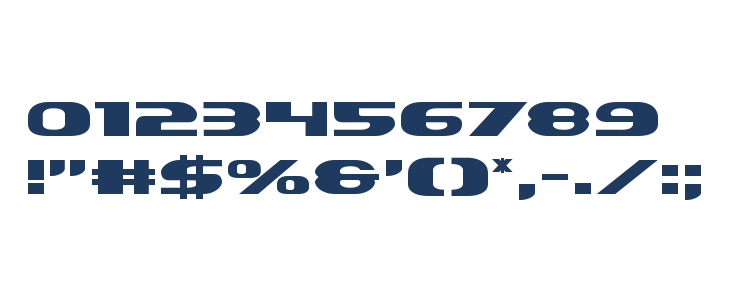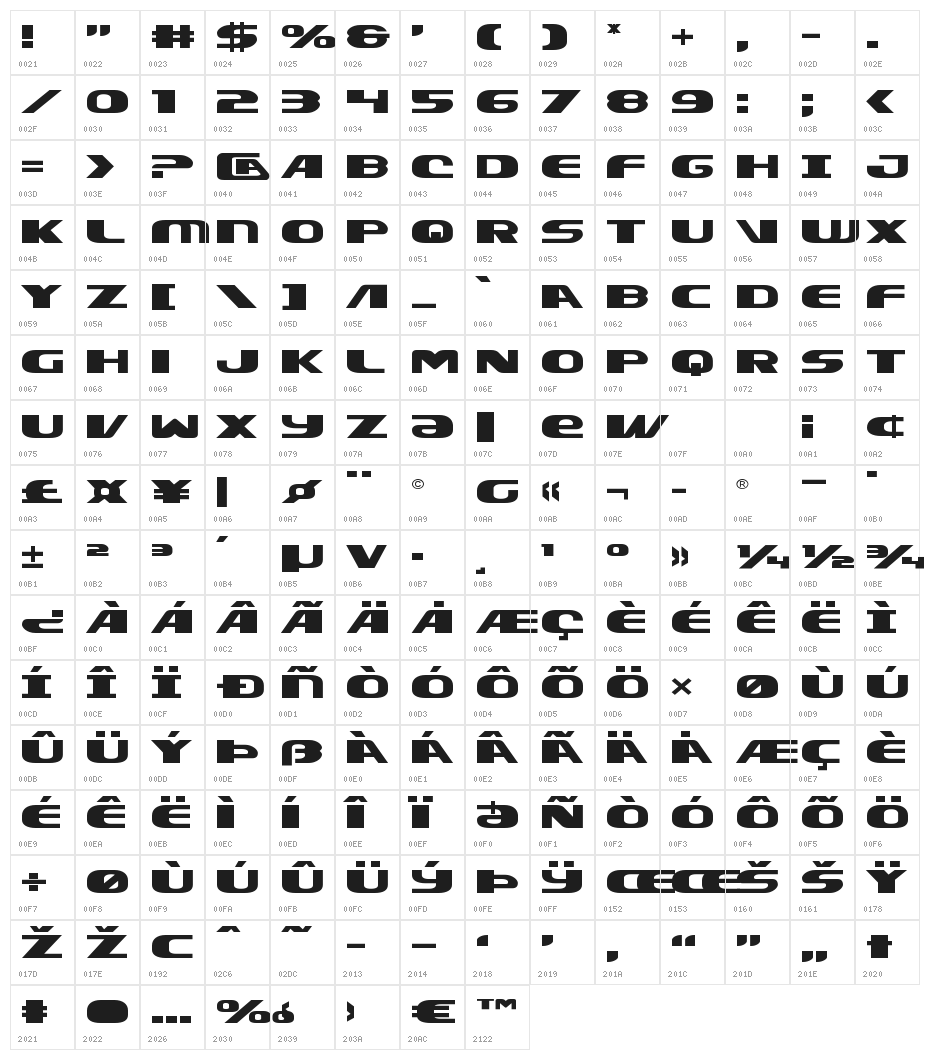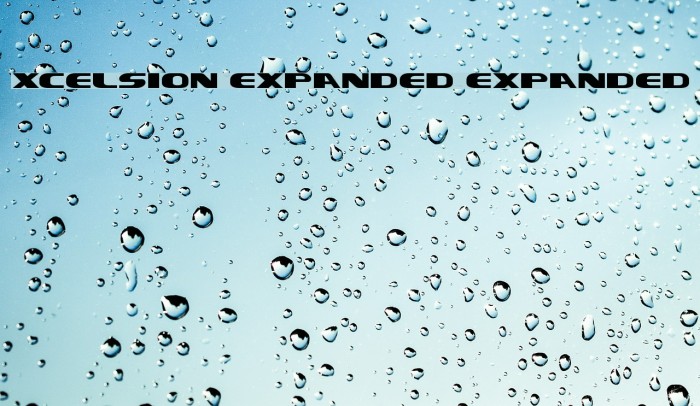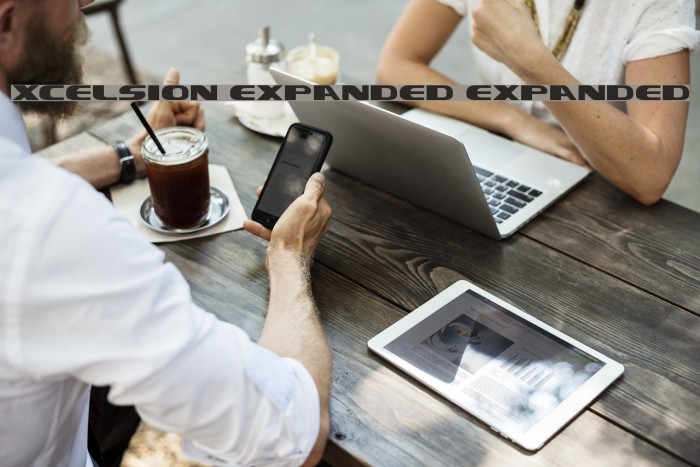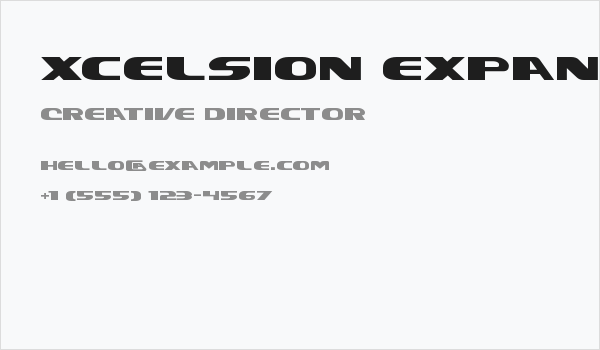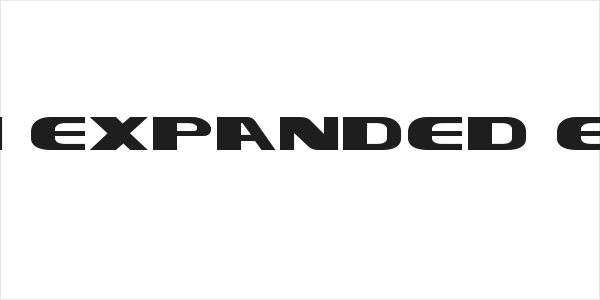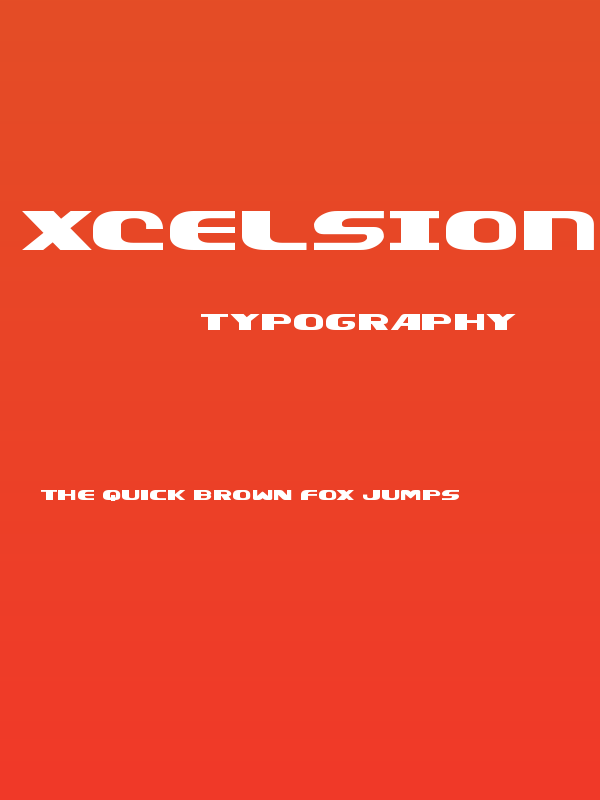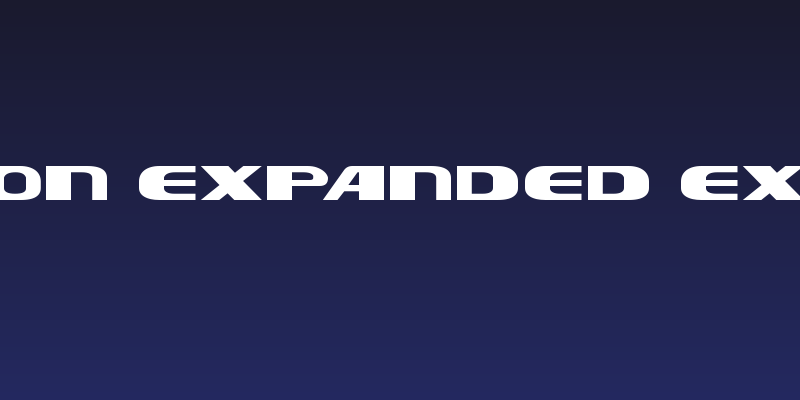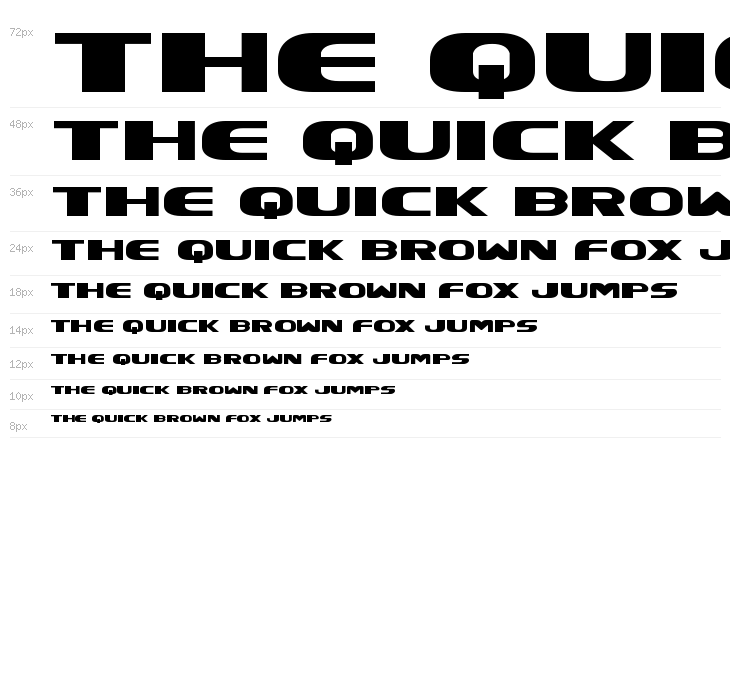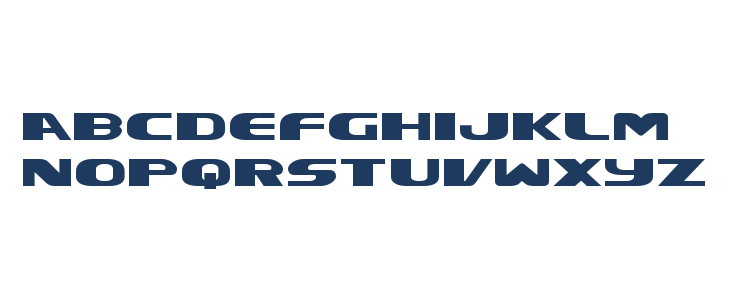
Xcelsion Expanded Font
Xcelsion Expanded Description
This font features a bold and futuristic design with a strong presence. The characters are wide and expanded, giving a sense of modernity and strength. The uppercase letters have a unique geometric style, with sharp angles and clean lines. The numbers and special characters maintain the same boldness, ensuring consistency throughout. The overall appearance is sleek and dynamic, making it suitable for projects that require a contemporary and impactful look.
| Proposed Projects | Ideal for technology branding, sci-fi posters, video game titles, and modern advertising campaigns. |